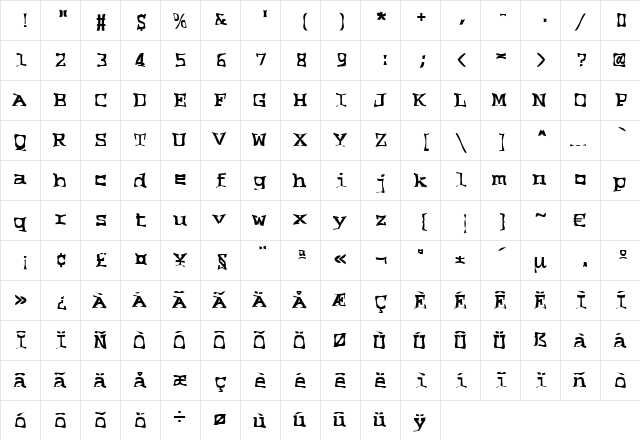
Dartmoor Regular Font Preview
Dartmoor Regular
Dartmoor Regular Font Details
Design Context for Dartmoor Typeface
Dartmoor is a composed and adaptable typeface that performs quietly and consistently across a wide range of design contexts.